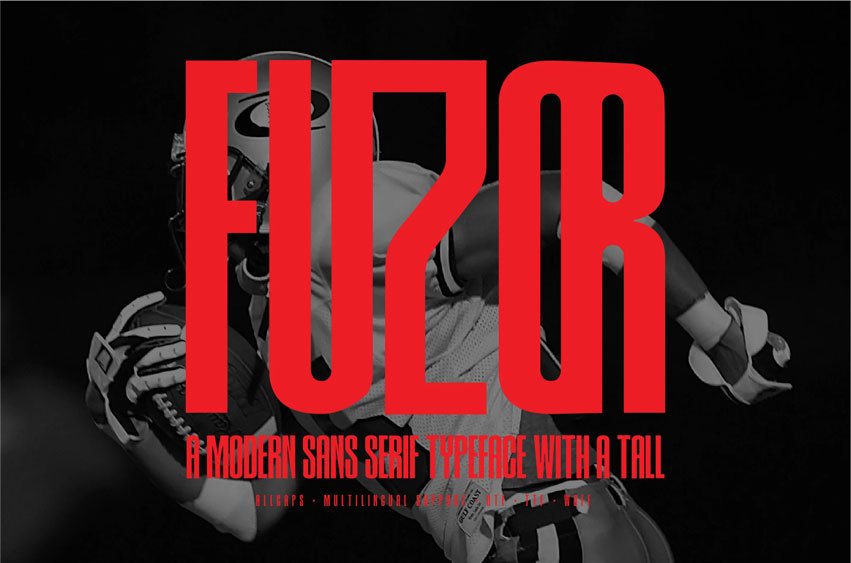
Fuzor Font is a modern sans serif typeface with a tall, condensed structure. Its clean lines and elongated proportions give it a sleek, contemporary appearance, making it ideal for headlines, branding, and digital interfaces where a bold, distinctive presence is needed.
The font balances readability with a stylish vertical emphasis, giving designs a sense of height and sophistication.